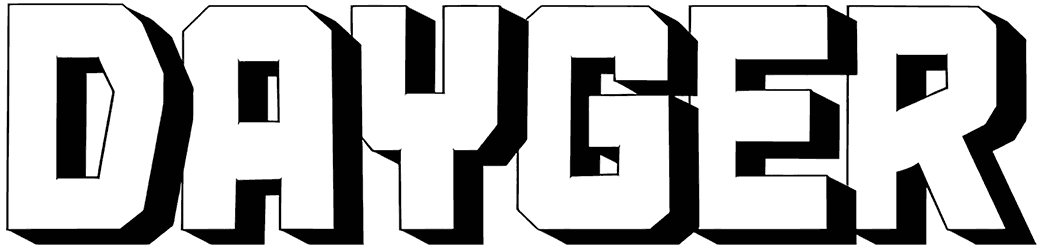
Dayger Font
To attract the audience’s attention, you must fulfill their expectations, and in this regard, a chunky 3D font, such as Dayger, can be helpful.
This all-caps outlined font lets you surprise all viewers by adding a sense of dynamic, jauntiness, exoticism, or captivation to all your editorial projects. Movie posters, video game brochures, logos, comic book covers, or banner ads would be a suitable realm for using this masterpiece.